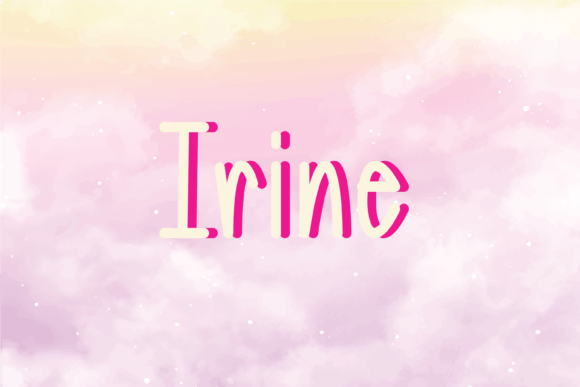
Introducing Irine Font: A Simple, Friendly, and Whimsical Handwritten Font
In the world of typography, fonts play a crucial role in conveying the tone and personality of a brand, product, or service. Among the numerous fonts available, Irine Font stands out as a simple, friendly, and whimsical handwritten font that can add a touch of uniqueness to your designs. In this article, we’ll explore the features, benefits, and uses of Irine Font, and why it’s an excellent choice for your creative projects.
What is Irine Font?
Irine Font is a carefully crafted handwritten font that exudes a sense of friendliness and approachability. Its simple and clean lines make it easy to read, while its whimsical and quirky touches add a dash of personality to your designs. This font is perfect for those who want to create a warm and inviting visual identity for their brand, product, or service.
Key Features of Irine Font
- Simple and Friendly: Irine Font boasts a straightforward and approachable design, making it perfect for a wide range of applications.
- Whimsical and Quirky: The font’s subtle quirks and whimsical touches add a touch of personality to your designs, setting them apart from the rest.
- Handwritten: Irine Font is a handwritten font, giving it a personal and human touch that’s hard to replicate with generic fonts.
- Versatile: This font is suitable for various design projects, including logos, wedding invitations, quotes, advertisements, print materials, magazines, and more.
Benefits of Using Irine Font
Irine Font offers several benefits that make it an excellent choice for designers and brands. Some of the key advantages include:
- Unique Visual Identity: Irine Font helps you create a distinctive visual identity that sets your brand apart from the competition.
- Emotional Connection: The font’s friendly and approachable design helps create an emotional connection with your audience, making them more likely to engage with your brand.
- Flexibility: Irine Font is versatile and can be used in various design projects, from digital to print materials.
- Ease of Use: The font is easy to read and understand, making it perfect for body text, headings, and titles.
Use Cases for Irine Font
Irine Font is a versatile font that can be used in a wide range of design projects. Here are some examples of how you can use this font:
- Logos: Create a unique and memorable logo for your brand using Irine Font.
- Wedding Invitations: Add a touch of elegance and whimsy to your wedding invitations with this beautiful font.
- Quotes: Use Irine Font to create inspiring and motivational quotes that resonate with your audience.
- Advertisements: Make your ads stand out with Irine Font’s friendly and approachable design.
- Print Materials: Use this font in brochures, flyers, posters, and other print materials to create a cohesive visual identity.
- Magazines: Irine Font is perfect for magazine titles, headings, and body text.
Tips for Using Irine Font Effectively
To get the most out of Irine Font, here are some tips to keep in mind:
- Pair it with Other Fonts: Experiment with pairing Irine Font with other fonts to create a unique visual hierarchy.
- Use it Consistently: Use Irine Font consistently across all your design materials to create a cohesive visual identity.
- Experiment with Colors: Try out different colors and textures to add depth and interest to your designs.
- Keep it Simple: Don’t over-accessorize your designs – keep it simple and let Irine Font shine.
In conclusion, Irine Font is a simple, friendly, and whimsical handwritten font that’s perfect for designers and brands looking to create a unique visual identity. Its versatility, ease of use, and emotional connection make it an excellent choice for a wide range of design projects. By following the tips outlined in this article, you can effectively use Irine Font to brighten up your designs and leave a lasting impression on your audience.
FAQs About Irine Font
- What is Irine Font? Irine Font is a simple, friendly, and whimsical handwritten font.